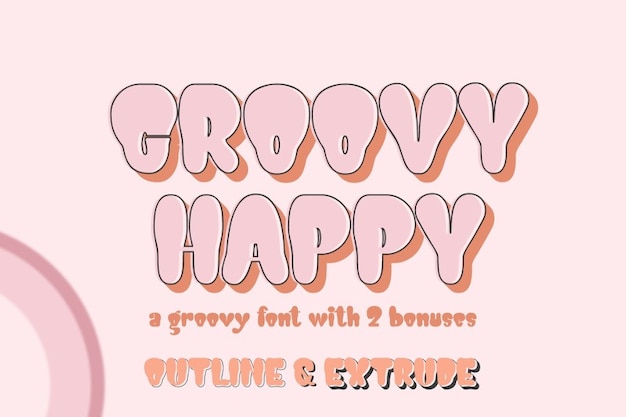
Groovy Happy Font
Haksen Studio
Groovy Happy is a retro font that channels the fun and flair of the '70s. With its bubbly, balloon-like curves, it exudes a joyful, celebratory vibe perfect for birthday invitations and party decor. This groovy, vintage-inspired font adds a vibrant, nostalgic touch to any celebration, making your designs pop with upbeat, retro charm.
Groovy Happy Regular (400)
Groovy Happy Regular (Extrude) (400)
Groovy Happy Regular (Line) (400)